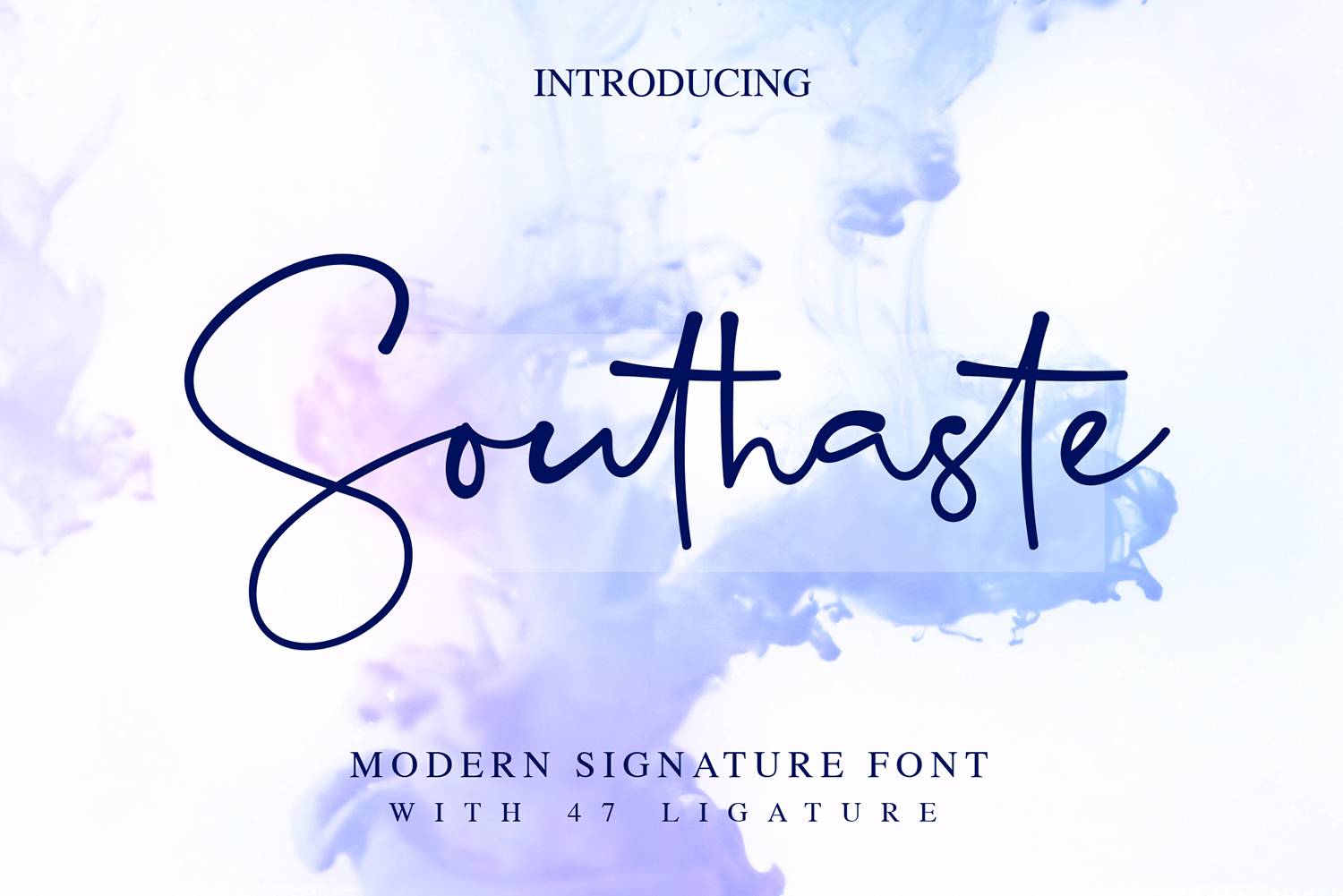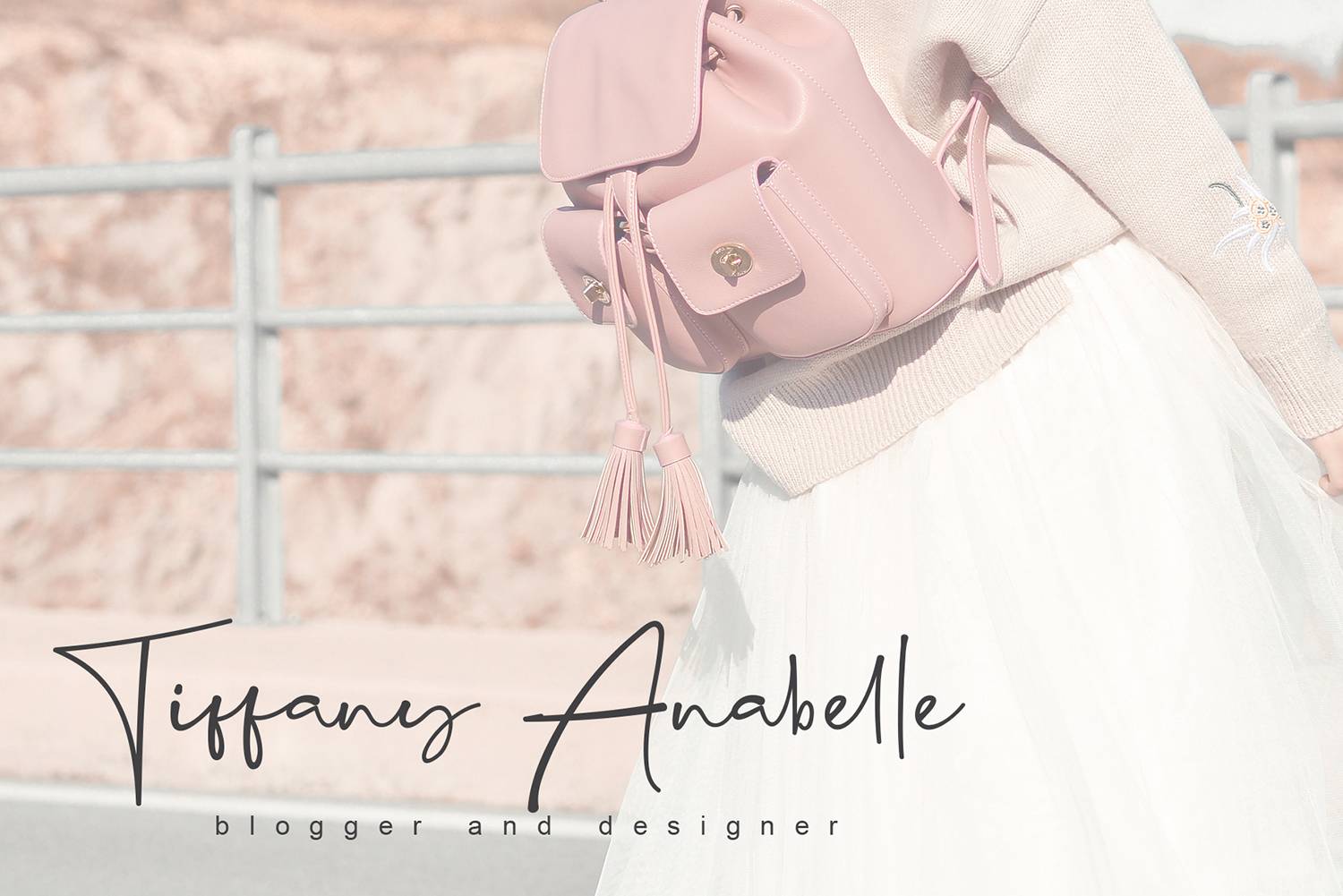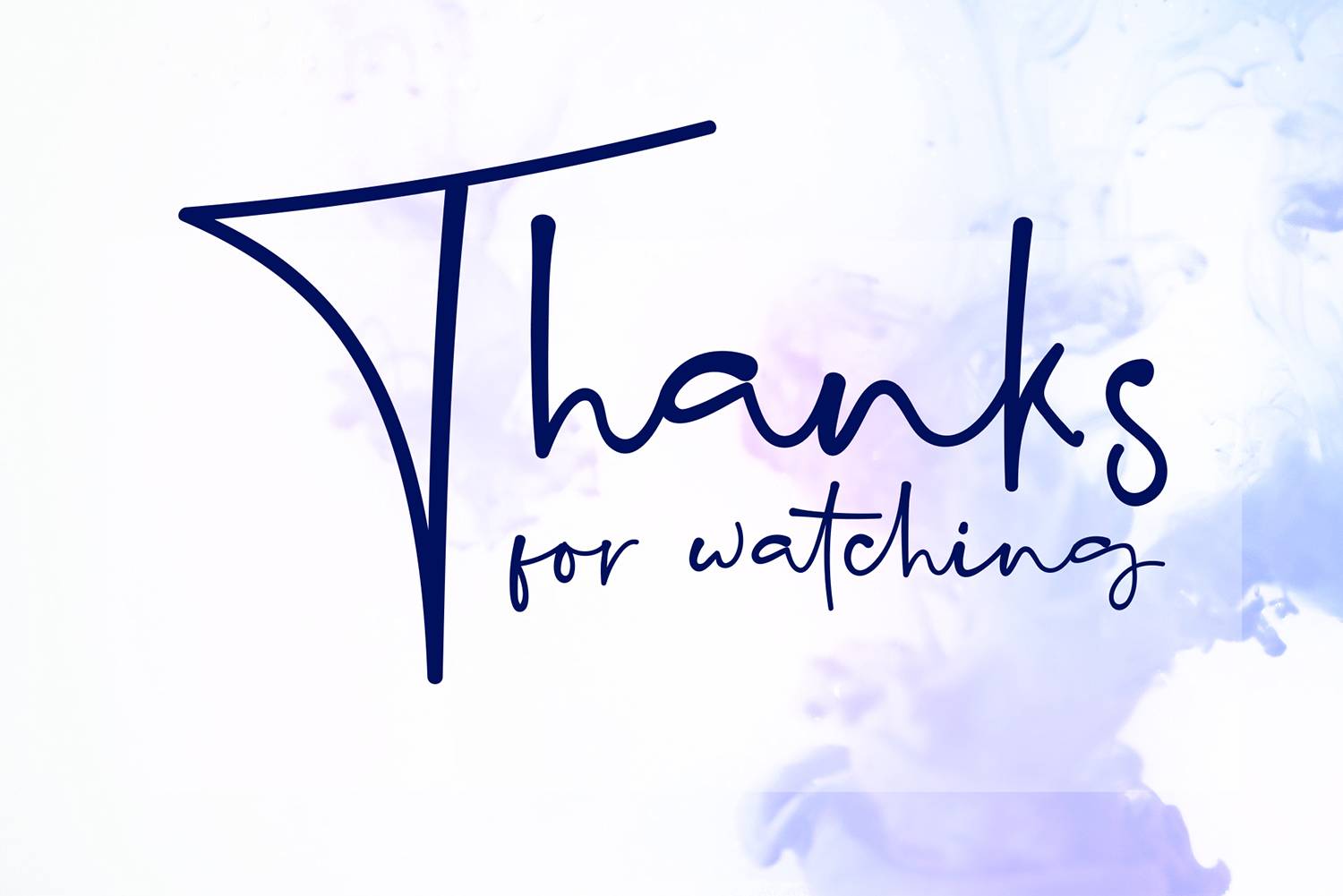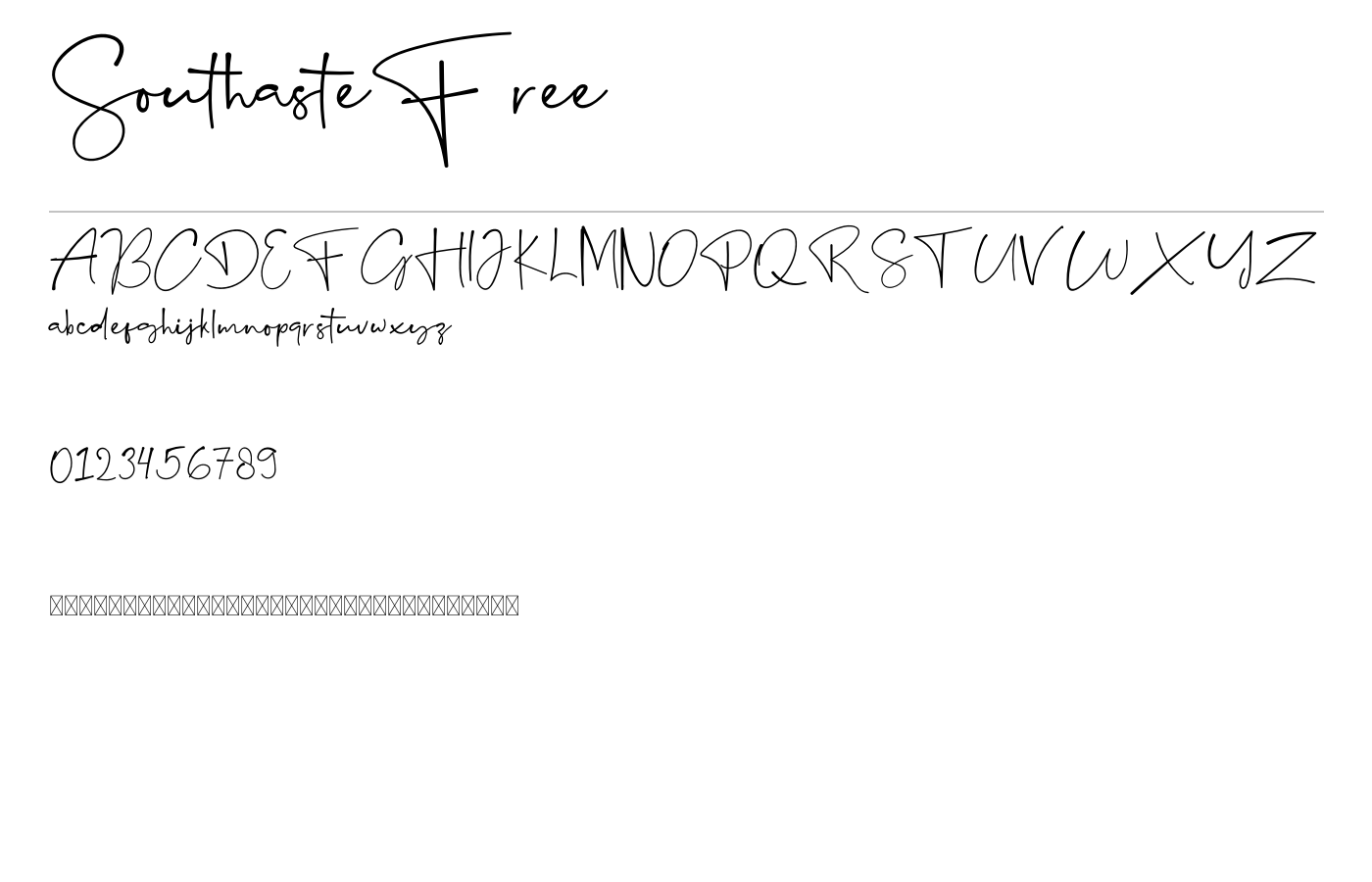
Southaste is a delicate, handwritten script font with a tall, airy feel and a casual, artistic vibe. Its thin strokes and loose letterforms create an elegant yet approachable style, perfect for adding a personal touch to branding, invitations, or creative projects. This font works well where a modern, everyday handwritten look is desired without overwhelming the design.
Southaste Font